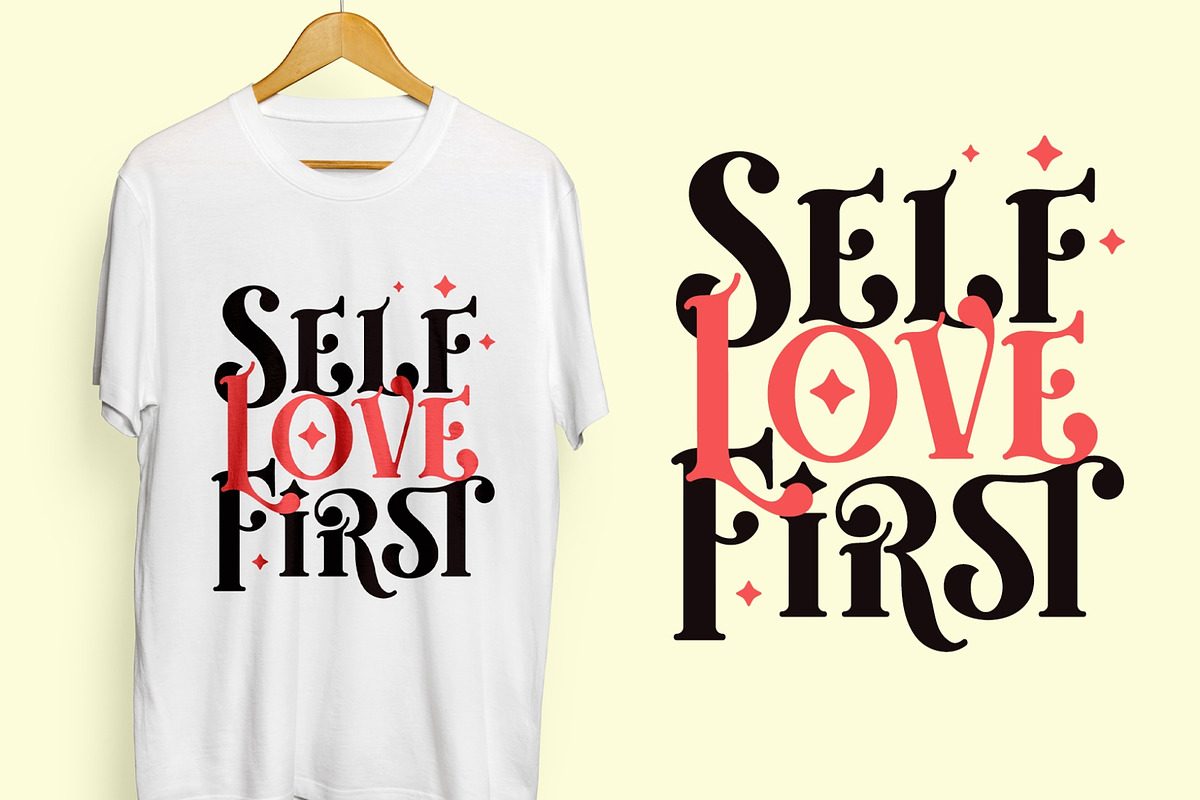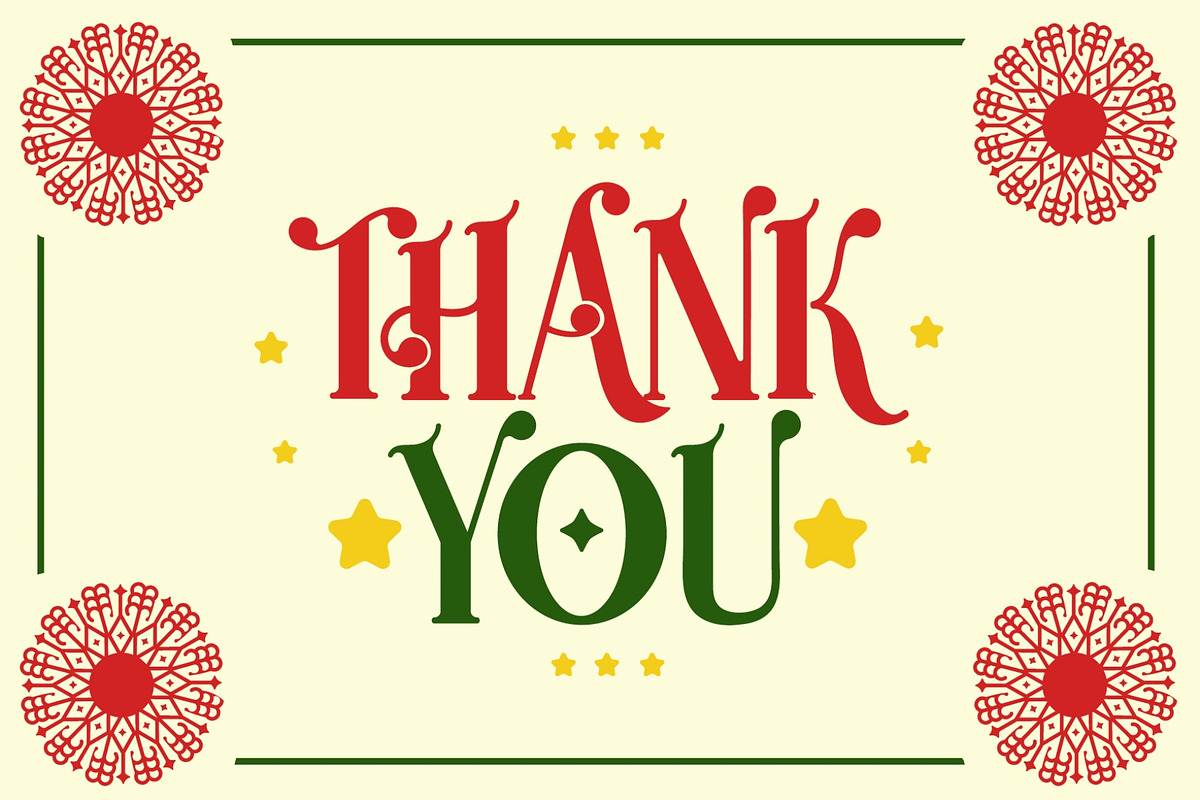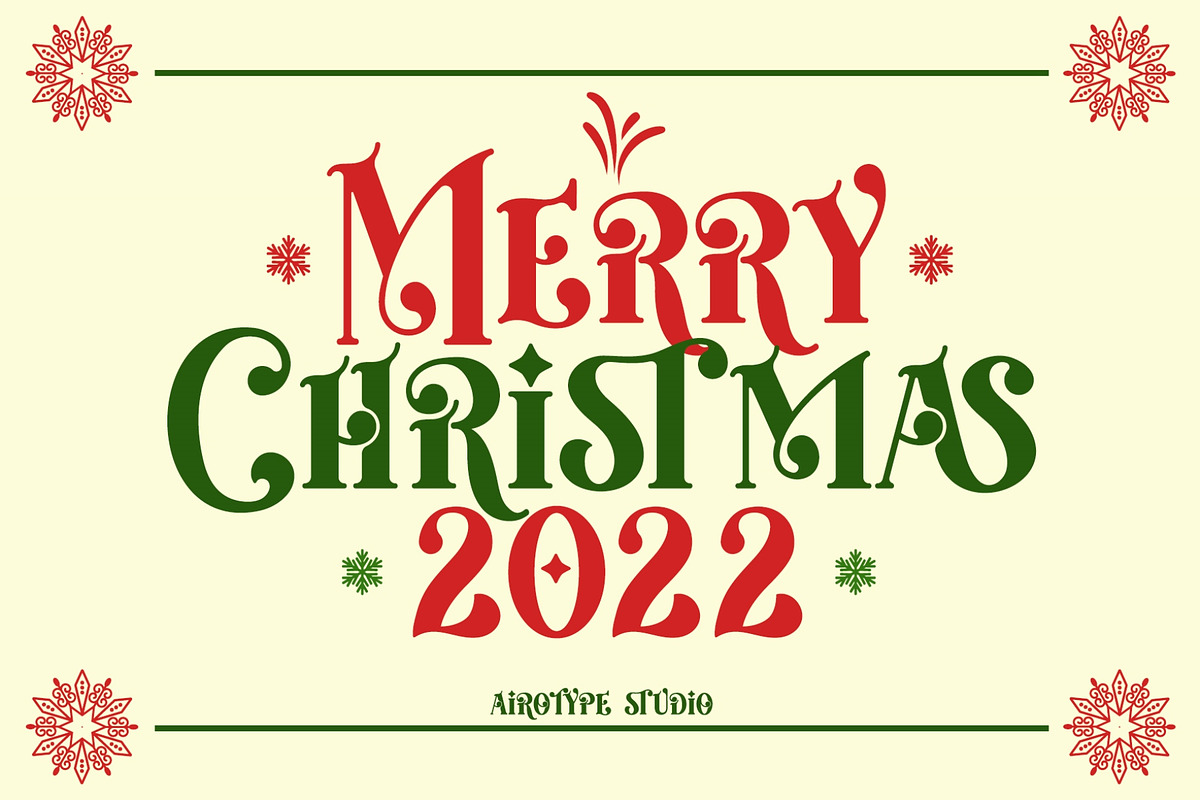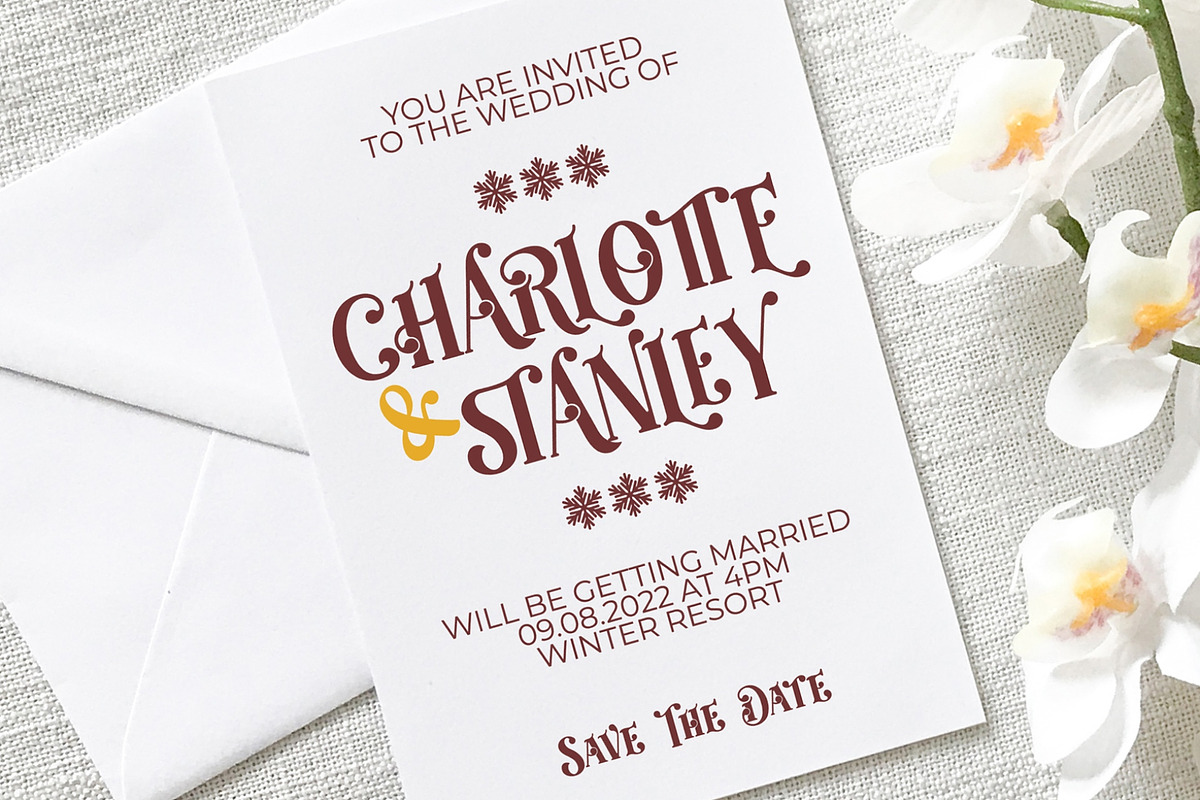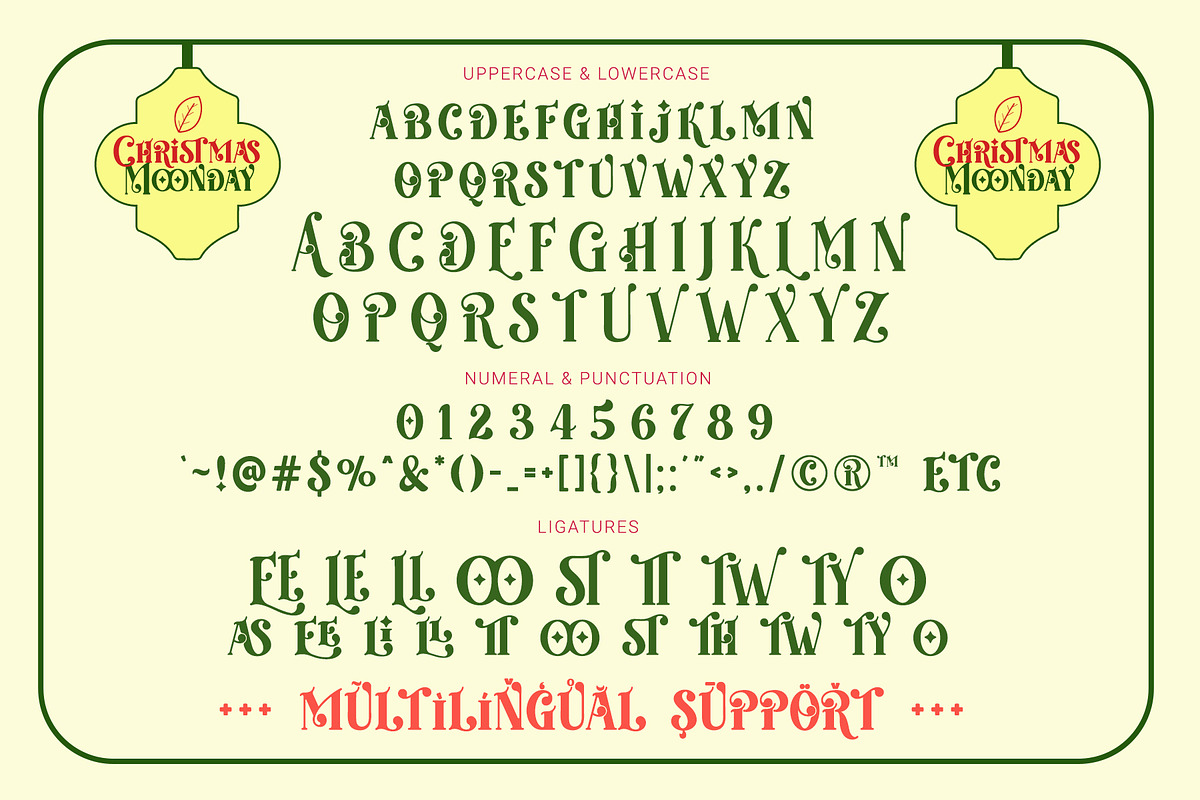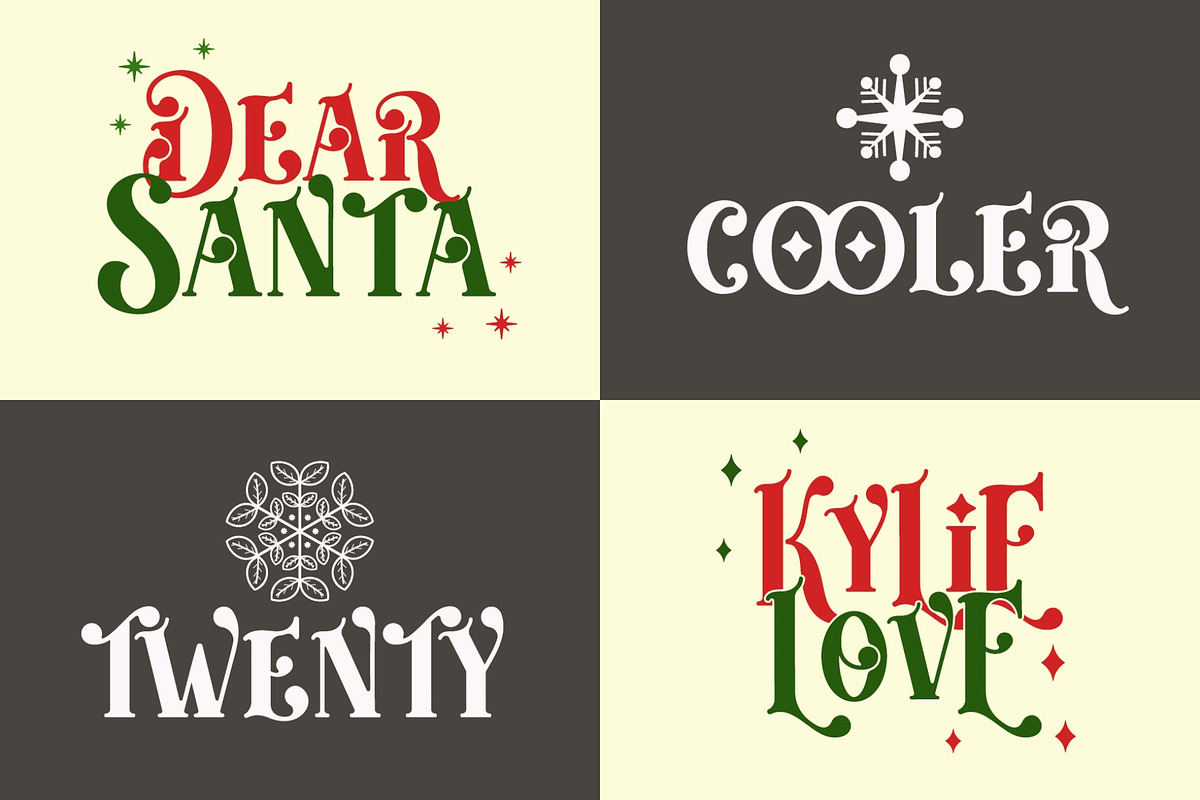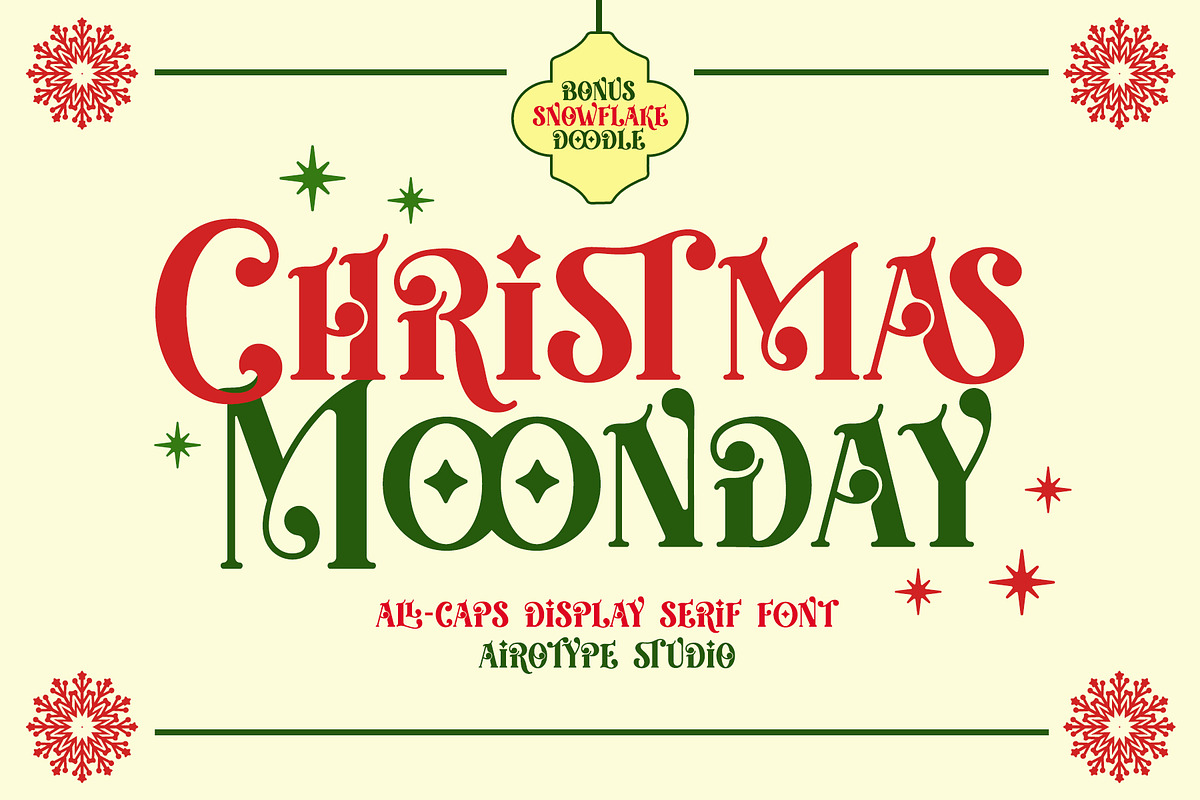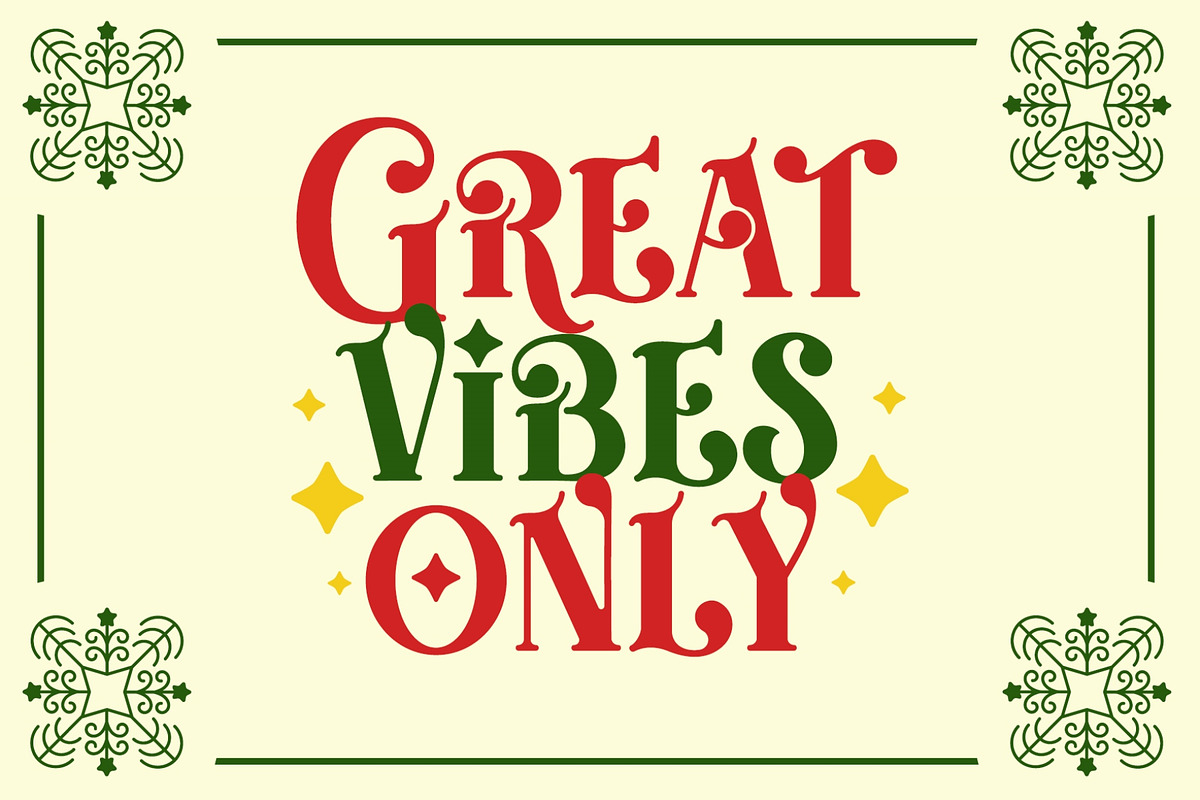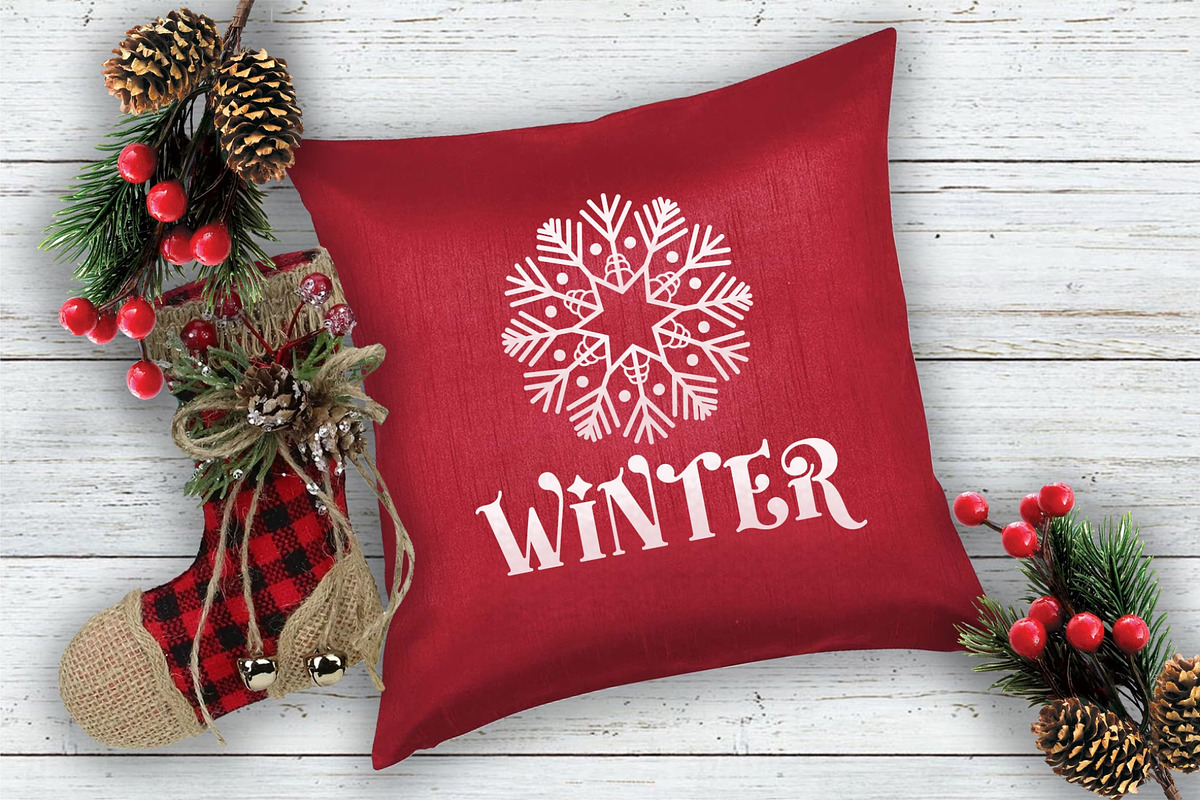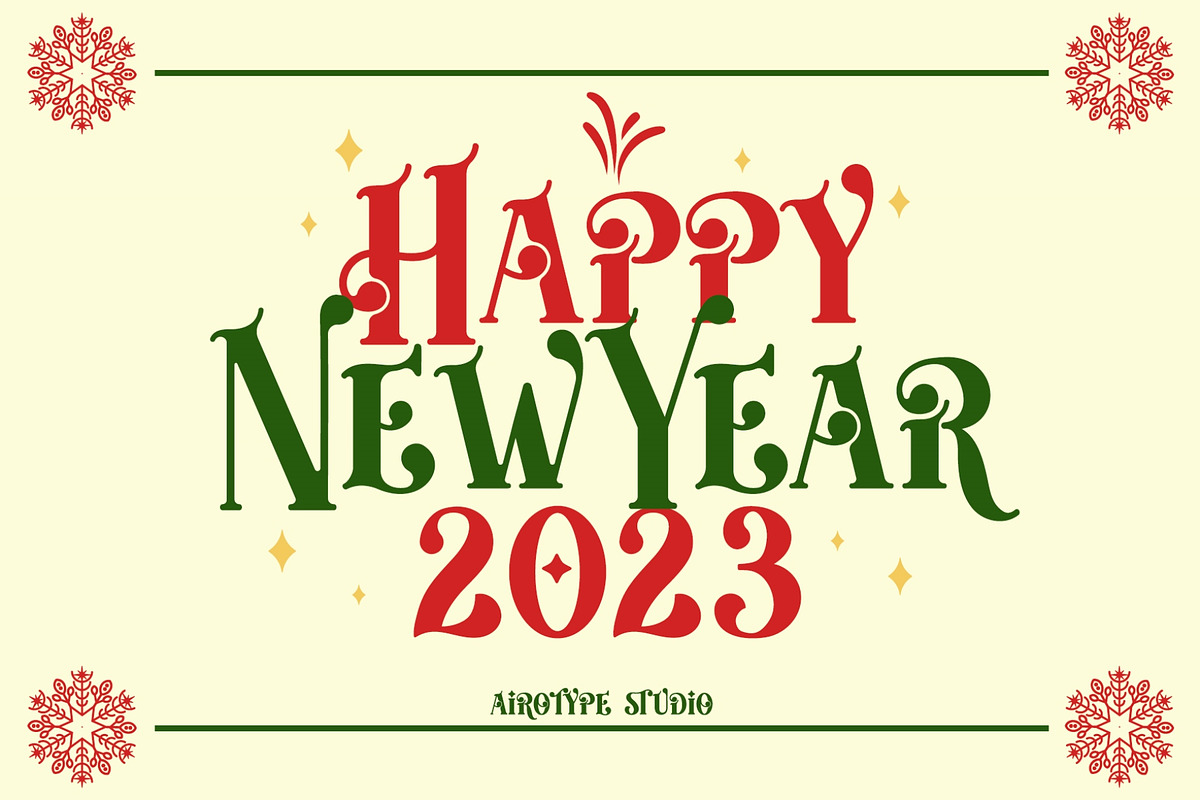
Christmas Moonday - All Caps Serif
Christmas Moonday is all caps display serif font. It is elegant and fancy.
It also has bonus snowflake doodle/ornament in OTF/TTF files to give you more options in designing, especially in winter craft or christmas craft.
This font is perfect for you elegant design, such as Christmas design, wedding, invitation, and many more.
- All Caps (different uppercase and lowercase)
- Most Multilingual Accent